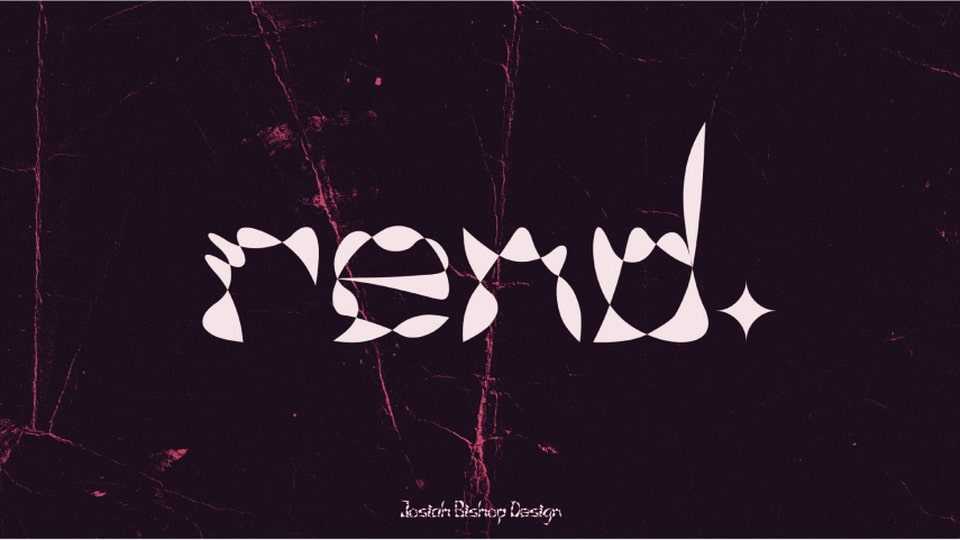
Download Rend. font, a mesmerizing display typeface with distorted and twisted shapes. Rend. is the perfect font to add an edgy and futuristic touch to album covers, book covers, and any project that demands an attention-grabbing look.
Designer: Josiah Bishop